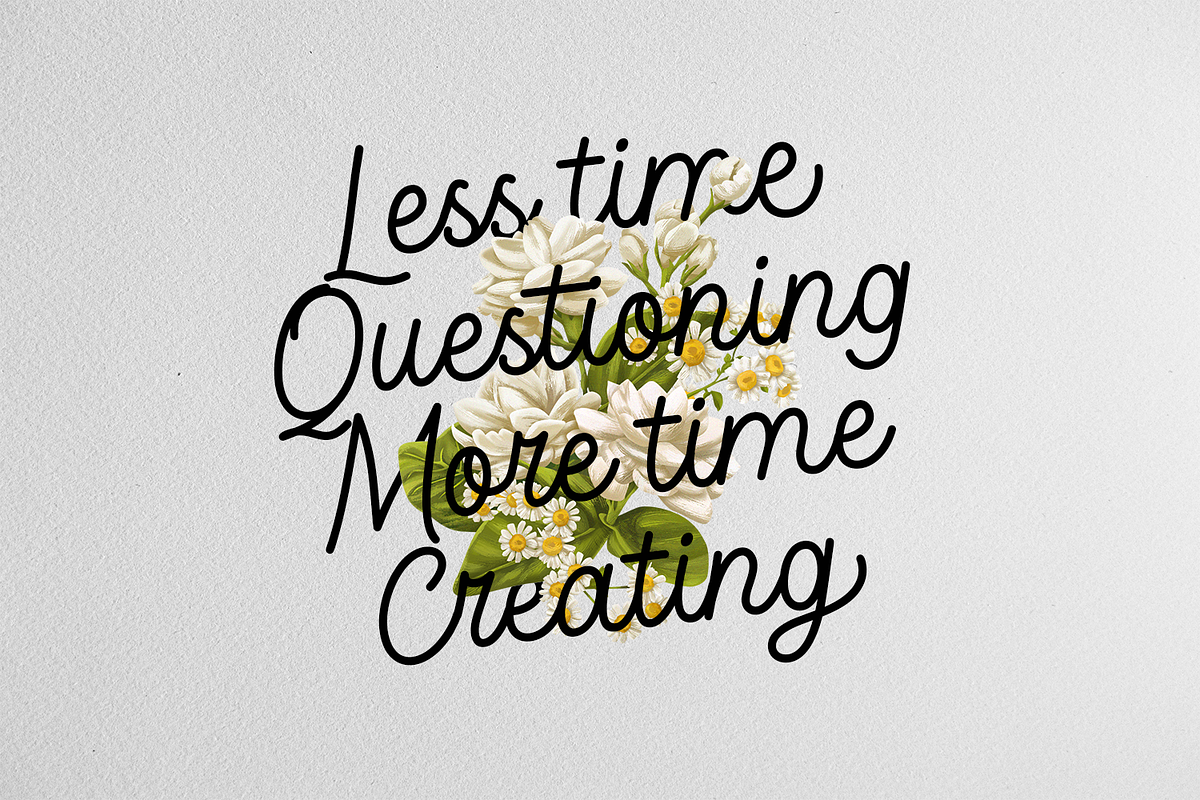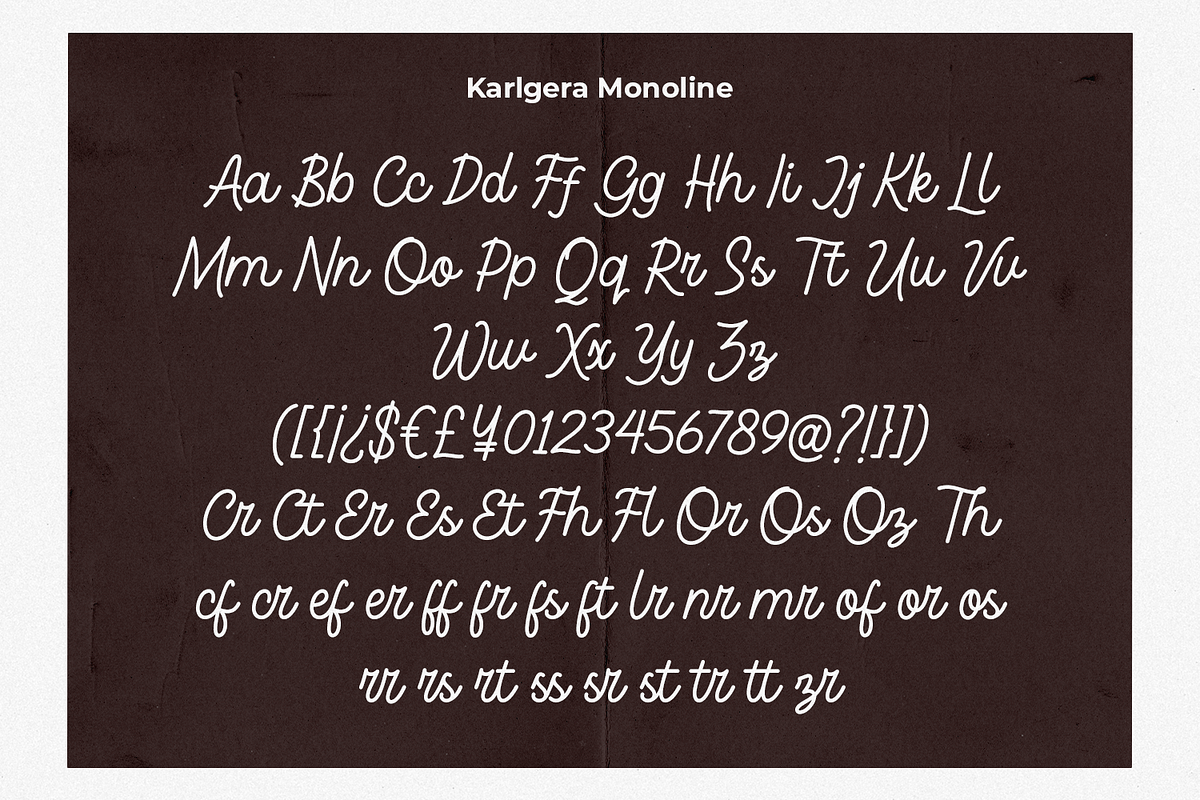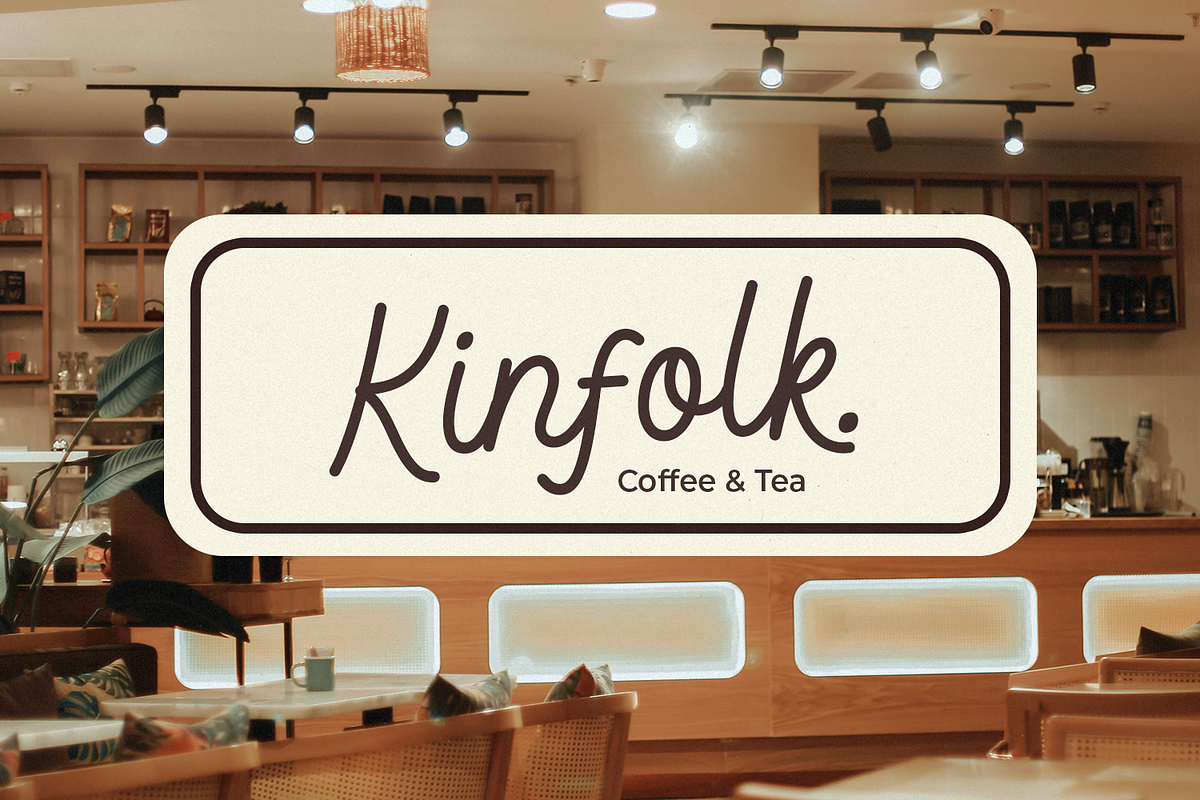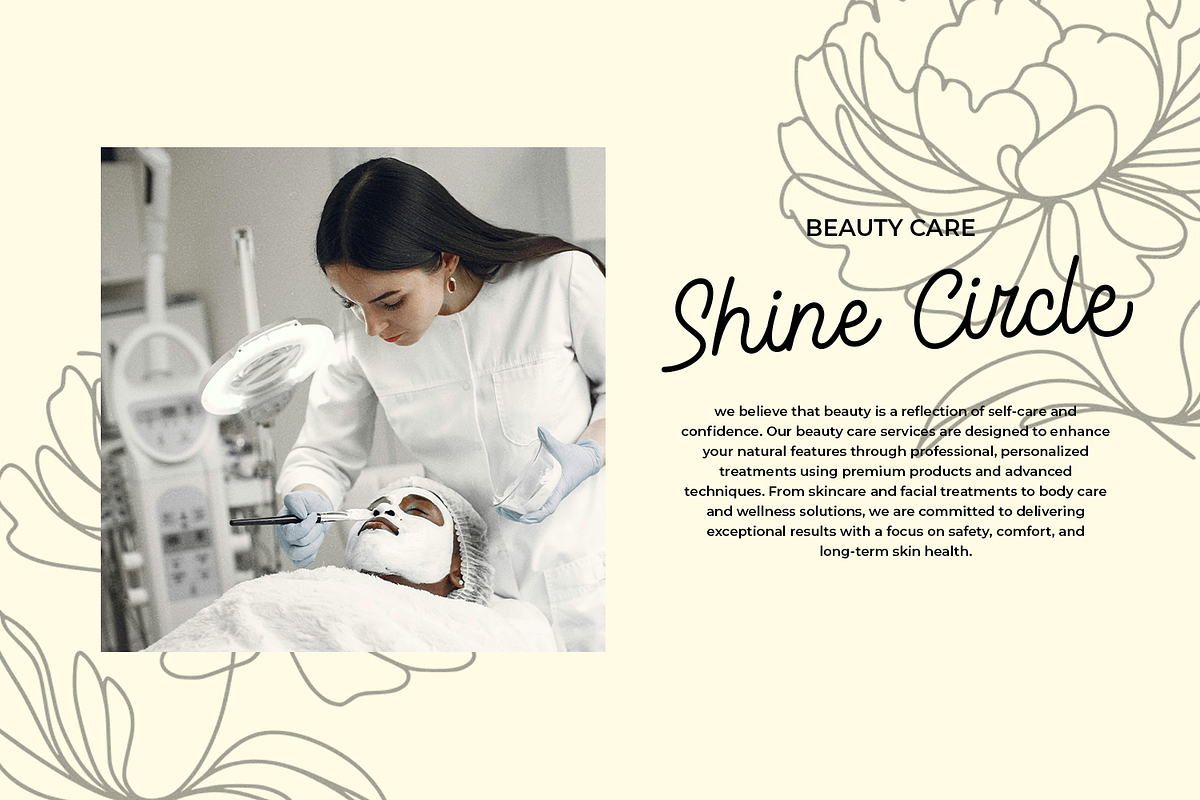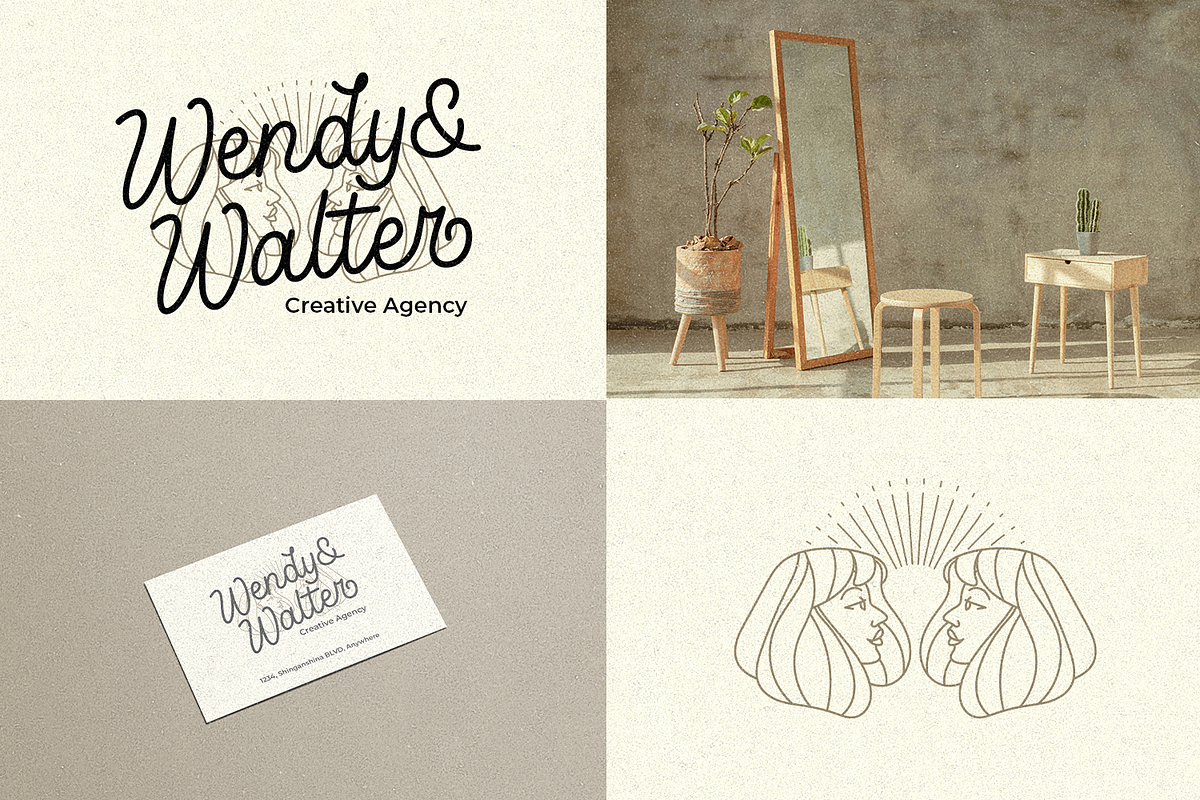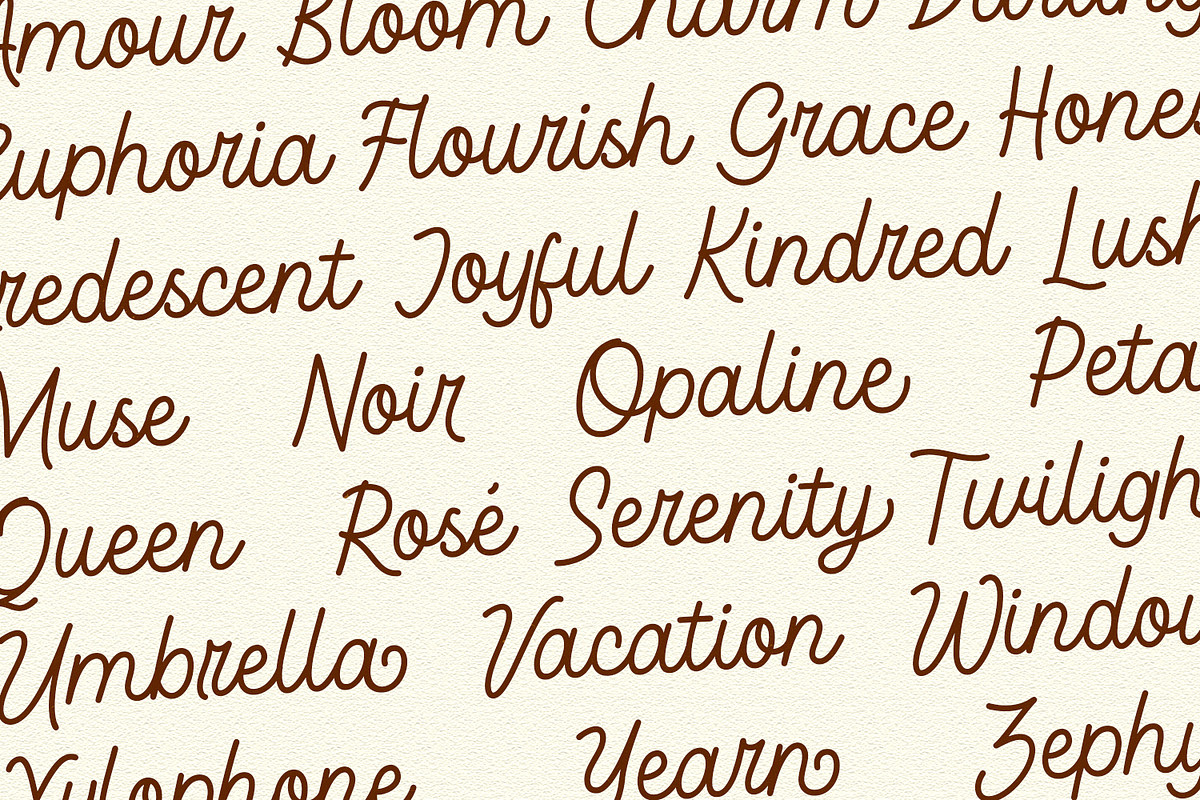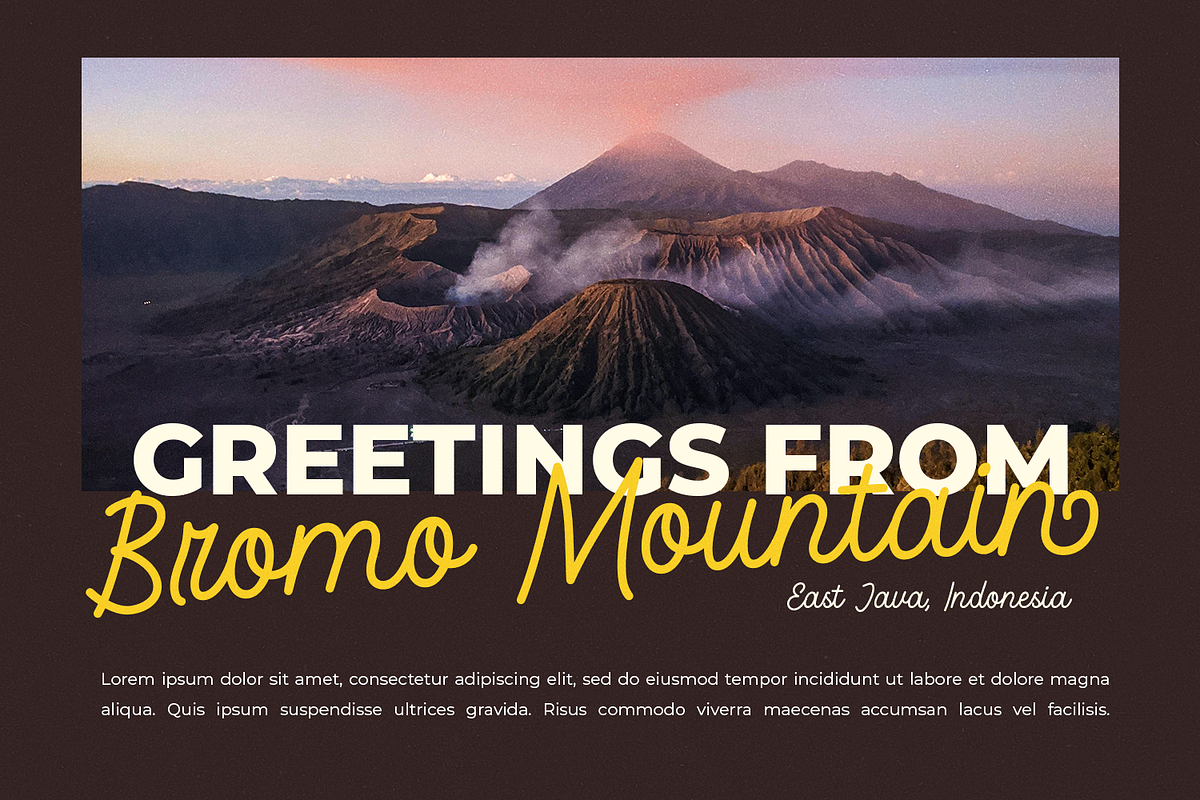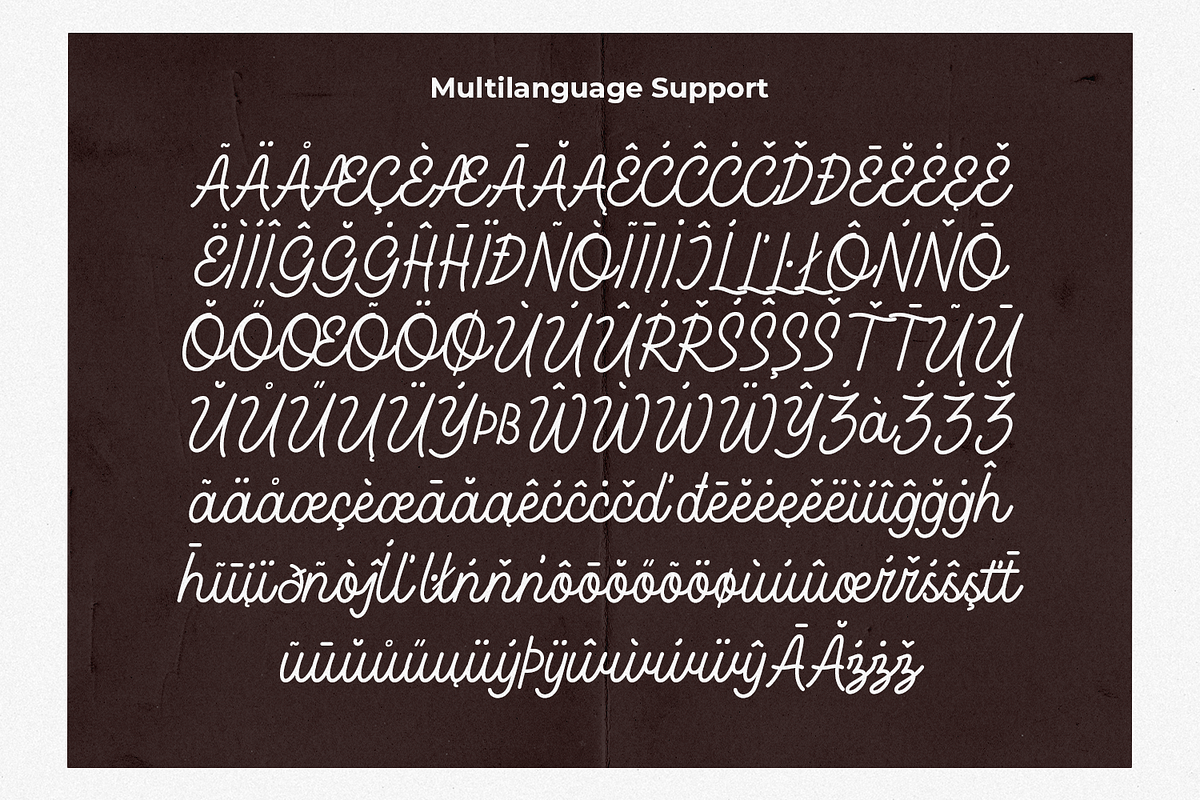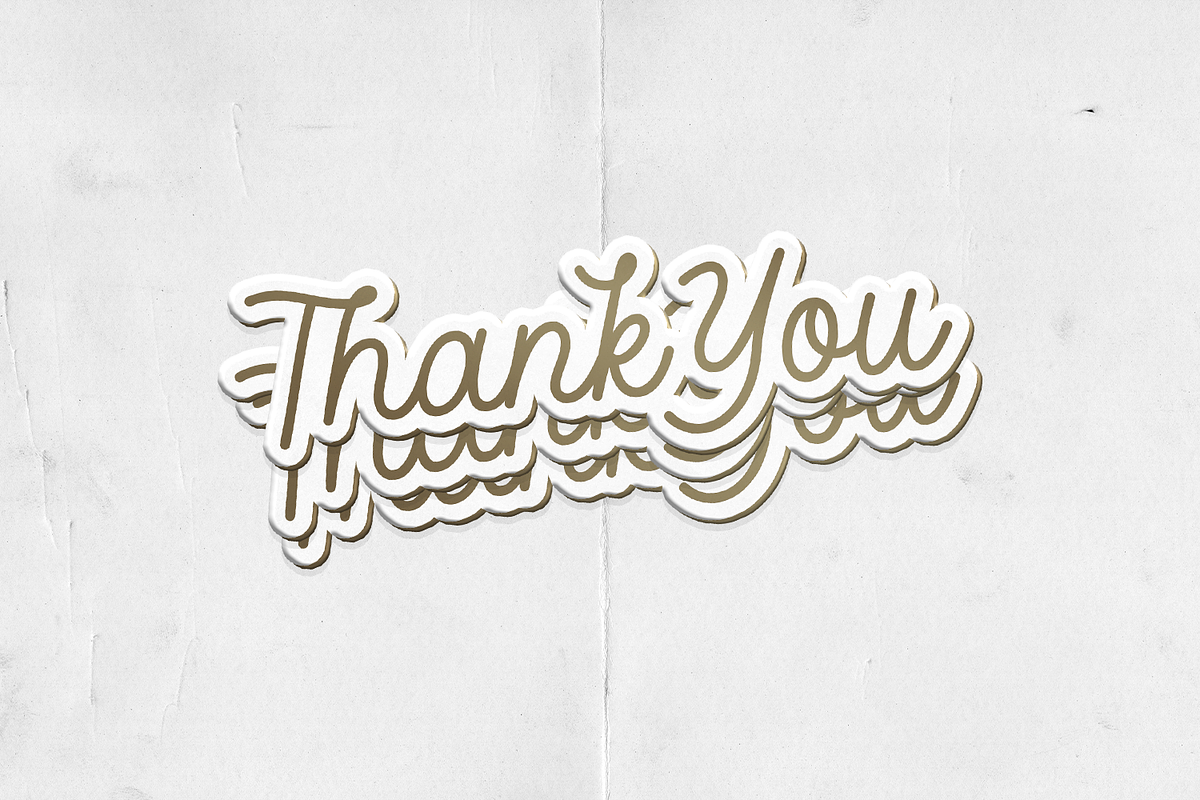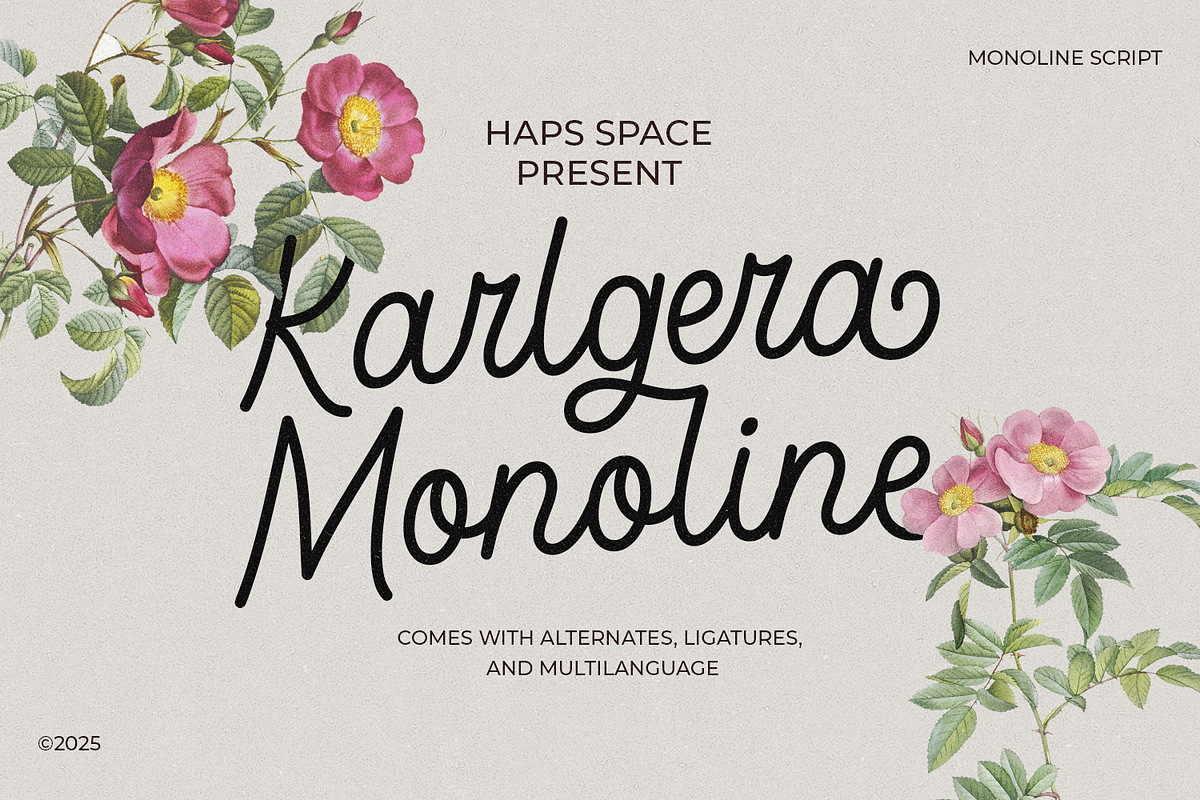
Karlgera - Monoline Script
Karlgera Monoline Script Font is a modern monoline script font featuring a smooth and elegant style. Designed with balanced curves and consistent stroke weight, this typeface offers a clean and contemporary appearance suitable for various creative applications.
Ideally suited for branding, packaging, logotypes, editorial layouts, and social media graphics. Making it an excellent option for both digital and printed creative works.
- Unique Letterforms